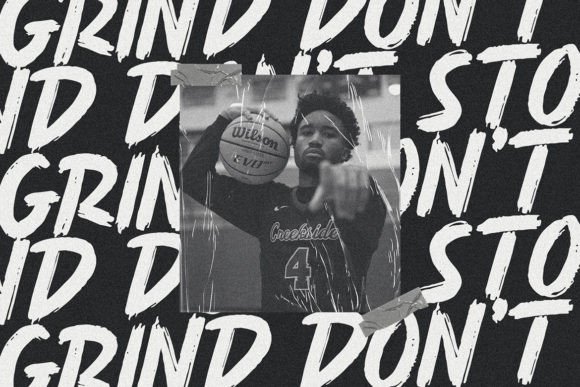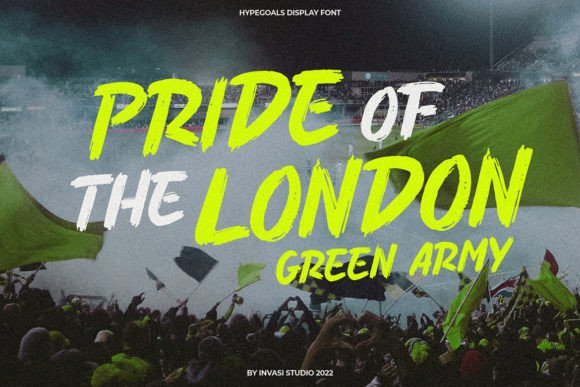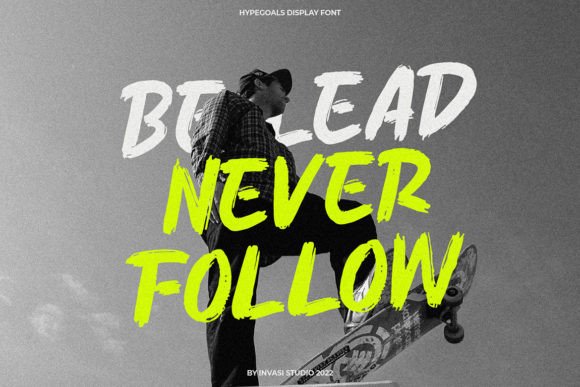
Introduction to Hypegoals Font Font
Fonts play a crucial role in design, and the Hypegoals Font font is a typeface that brings both character and versatility to any project. Whether you’re working on a branding project, a website, or a print design, the Hypegoals Font font offers a unique style that can elevate your work.
This textured, handwritten brush display font with aggressive strokes is perfect for displaying a projectβs headline.
Your sports team will stand out with this typeface Hypegoals is ideal for headings, flyers, greeting cards, product packaging, book covers, printed quotes, logotype, album covers, and more.
Key Features of Hypegoals Font Font
Why Choose Hypegoals Font Font?
The Hypegoals Font font is more than just a typeface β it’s a design tool that helps you communicate your message with style and clarity. Its unique character set and versatile design make it suitable for a wide range of applications, from elegant invitations to bold headlines.
With its carefully crafted letterforms and balanced proportions, the Hypegoals Font font ensures readability and visual appeal across all mediums.
What makes Hypegoals Font font special?
The Hypegoals Font font stands out with its unique design, exceptional readability, and versatility across various design applications.